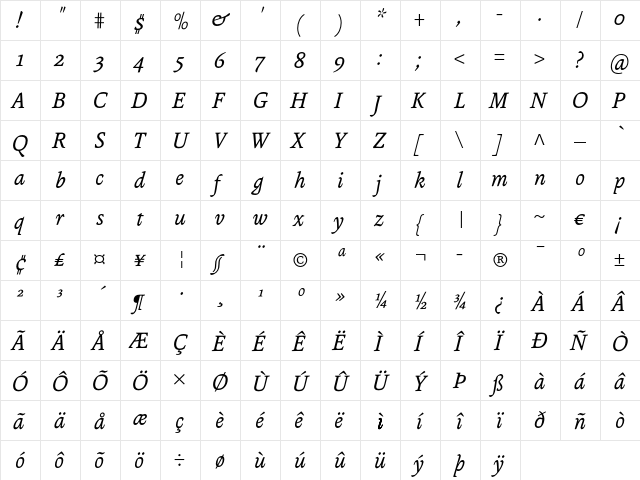
Andralis ND OsF Italic
Design Context for Andralis ND OsF Typeface
Andralis ND OsF is a composed and adaptable typeface that performs quietly and consistently across a wide range of design contexts. The dynamic lean of this cut emphasises speed and emphasis in any layout.
Pro Tip: Try Andralis ND OsF for annotation and caption copy alongside an upright companion — the contrast in angle creates a dynamic but ordered typographic system.